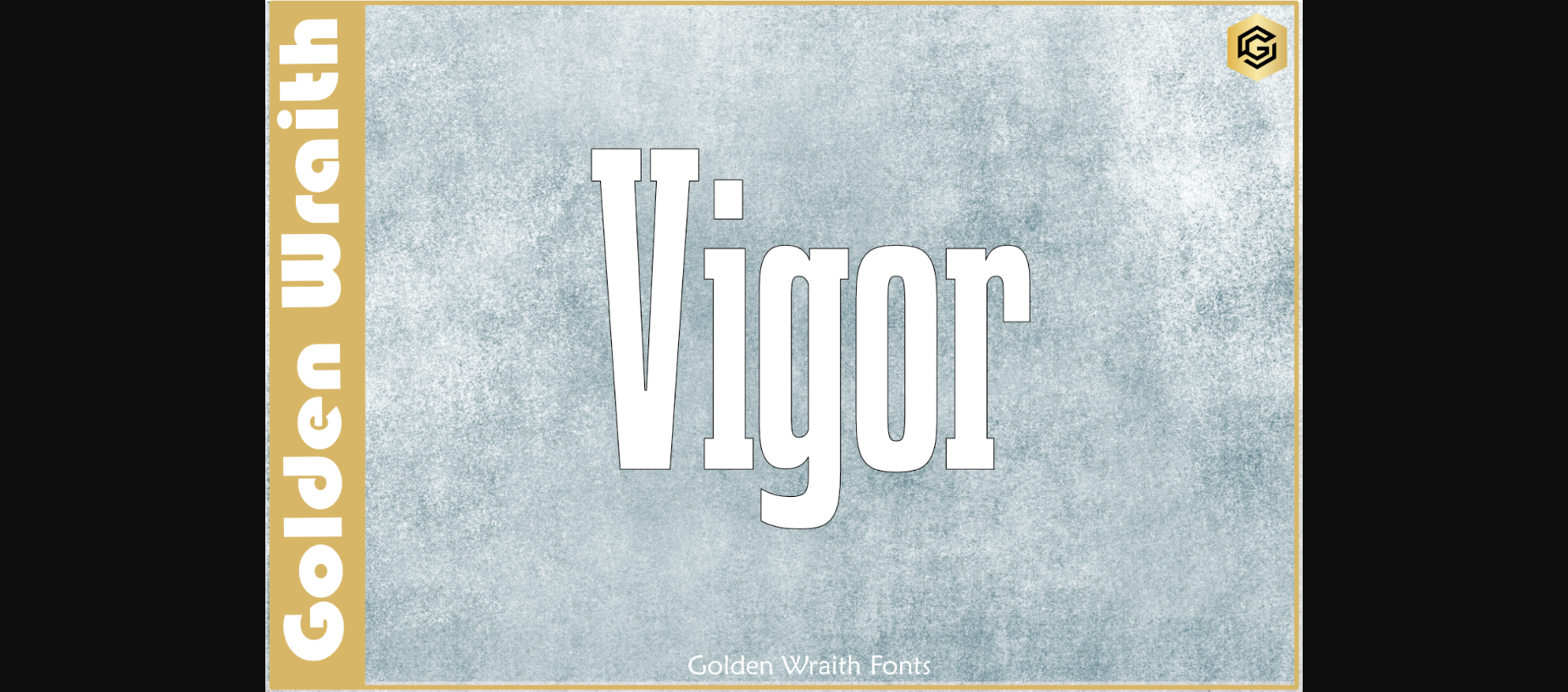
About Vigor Font
“Vigor” is a bold and commanding sans serif font that exudes strength and determination. Its thick letterforms and pronounced serifs make a powerful statement, ideal for impactful headlines, branding, and logos. With a balance between sharpness and elegance, it remains highly legible and approachable in both print and digital media. Embrace the energy and forcefulness of “Vigor,” and watch your words come alive with a boldness that stands out from the crowd.